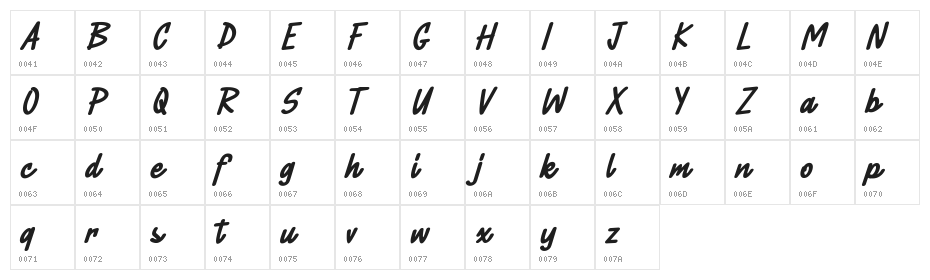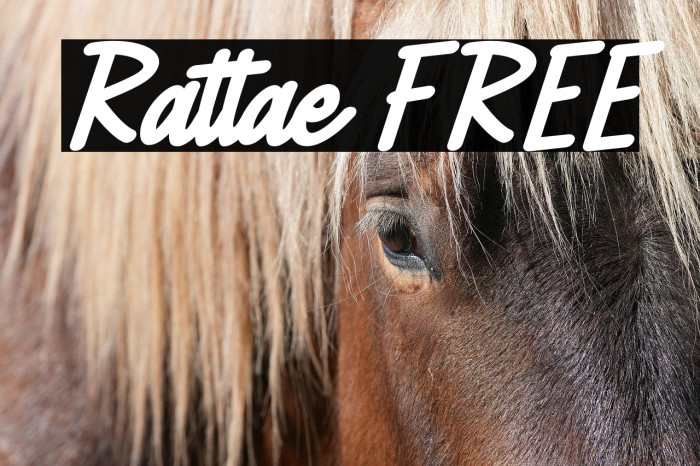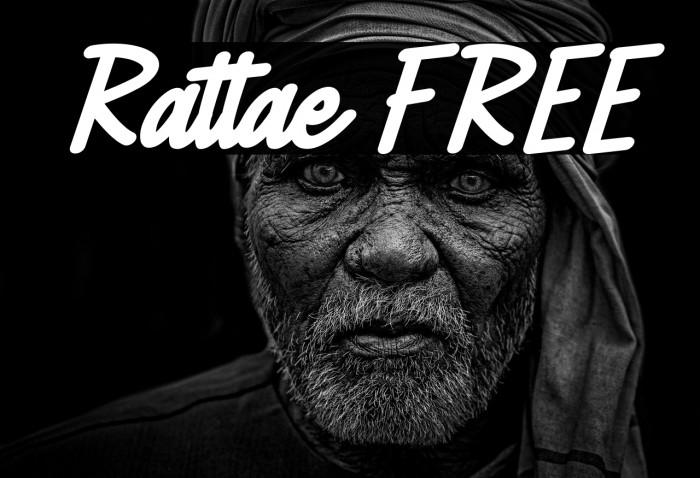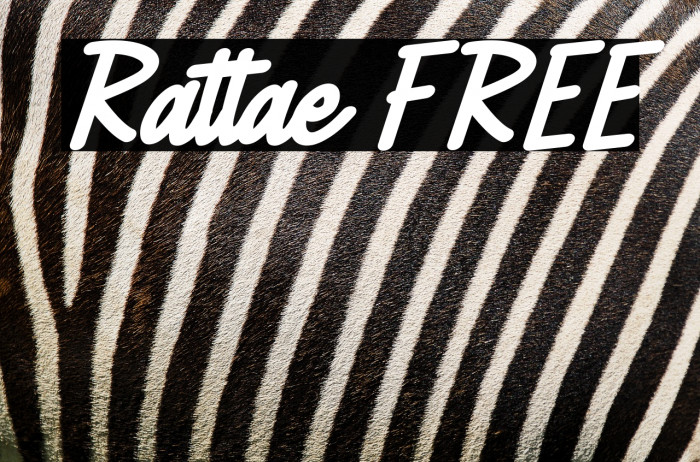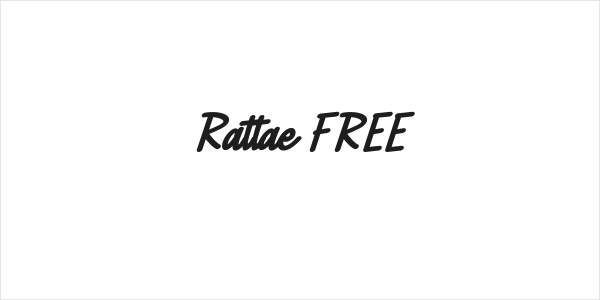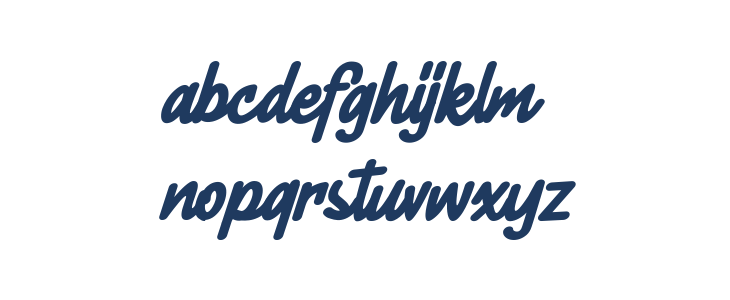
Rattae FREE Font
Rattae FREE Description
This font features a bold and dynamic script style, characterized by its fluid and connected letterforms. The strokes are thick and consistent, giving it a strong presence. The uppercase letters are slightly slanted, adding a sense of motion and energy, while the lowercase letters maintain a cohesive flow. The font's design is reminiscent of hand-painted signage, with a modern twist that makes it suitable for contemporary applications. Its playful yet assertive appearance makes it ideal for projects that require a touch of personality and flair.
| Proposed Projects | Ideal for branding, logo design, posters, and social media graphics. |